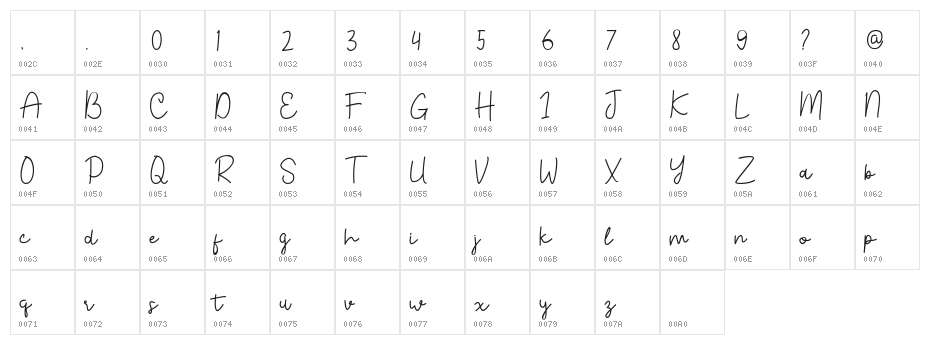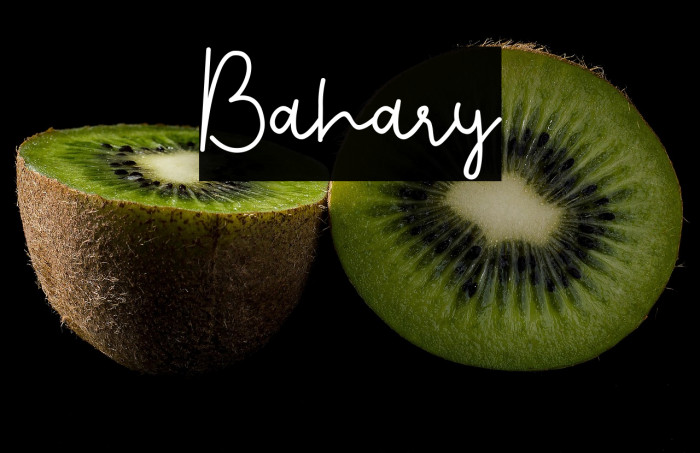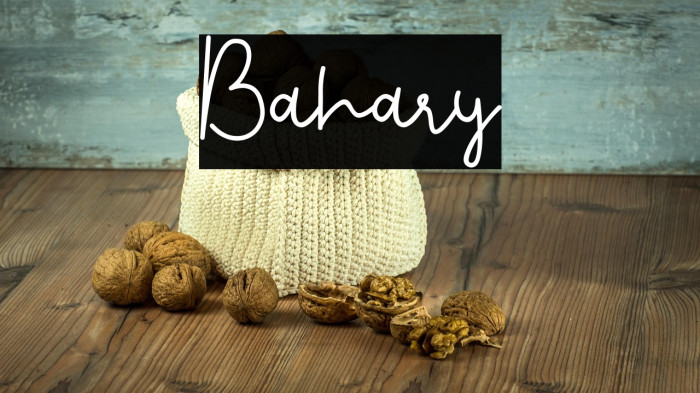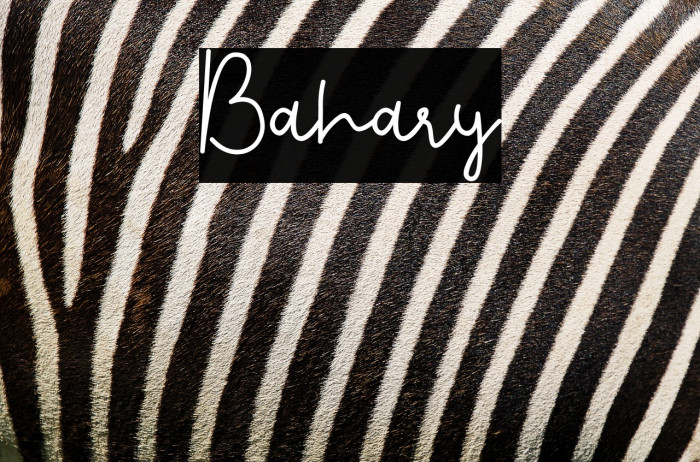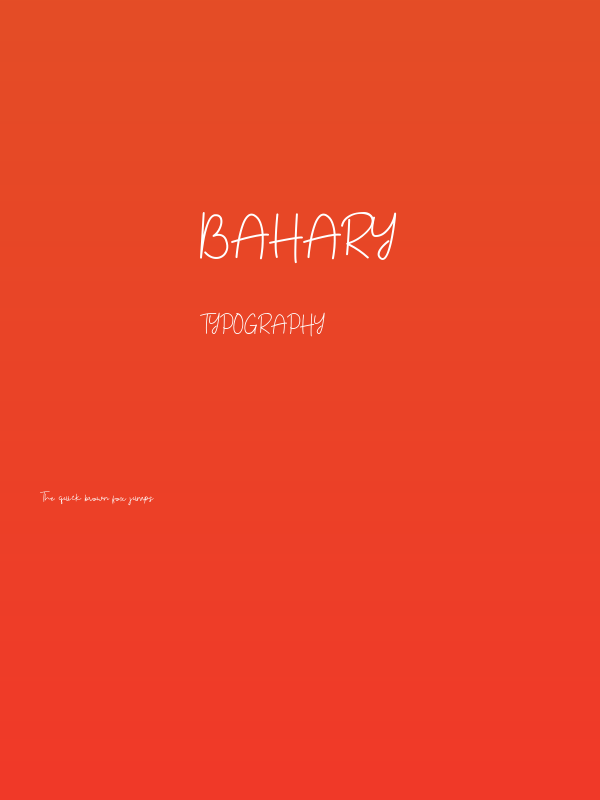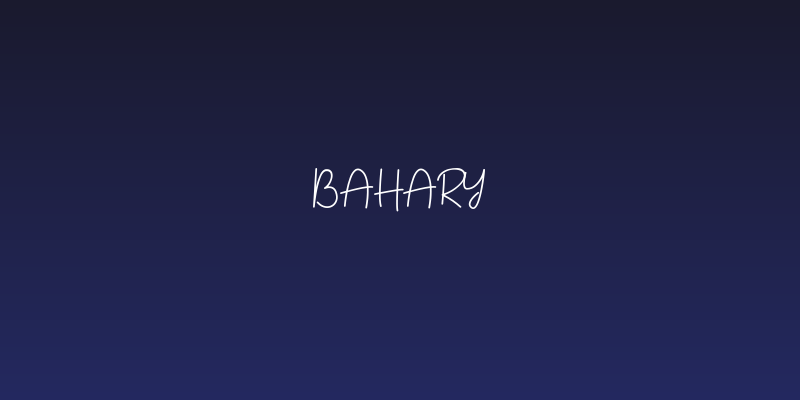
Bahary Font
Bahary Description
This font features a playful and casual handwritten style, characterized by its smooth, flowing lines and slightly irregular letterforms. The uppercase letters are tall and slender, with a slight slant that adds a dynamic feel. The lowercase letters maintain a consistent flow, enhancing the handwritten aesthetic. The numerals are clear and legible, matching the overall style with their rounded and slightly tilted appearance. This font exudes a friendly and approachable vibe, making it suitable for various creative applications.
| Proposed Projects | Ideal for greeting cards, invitations, personal branding, and social media graphics. |